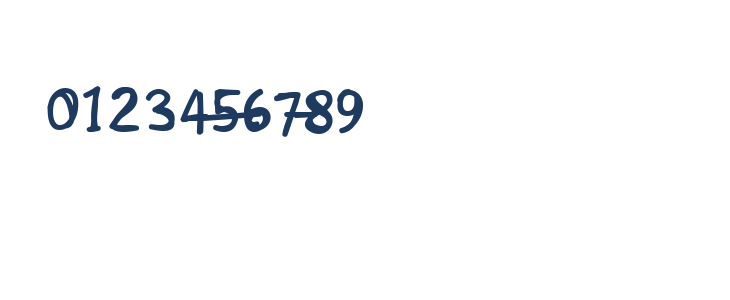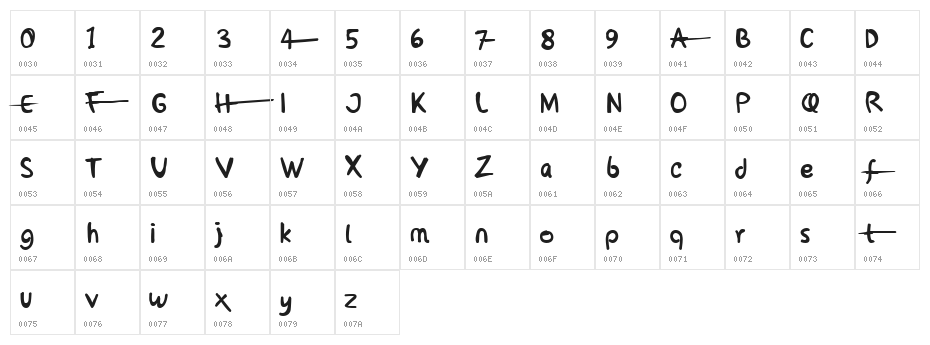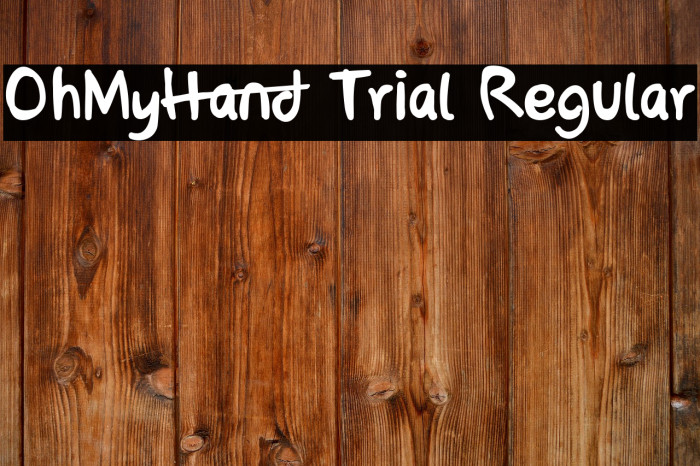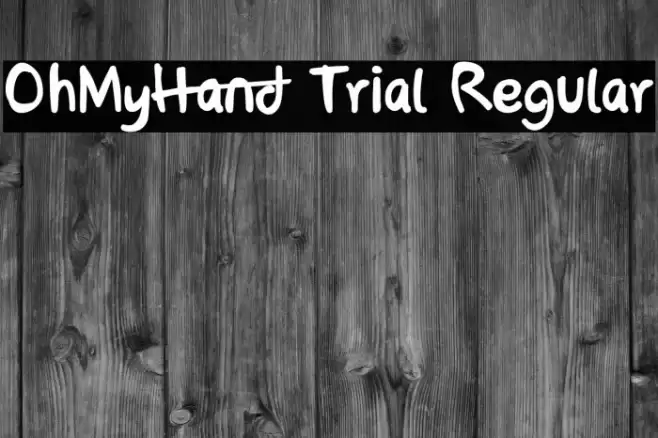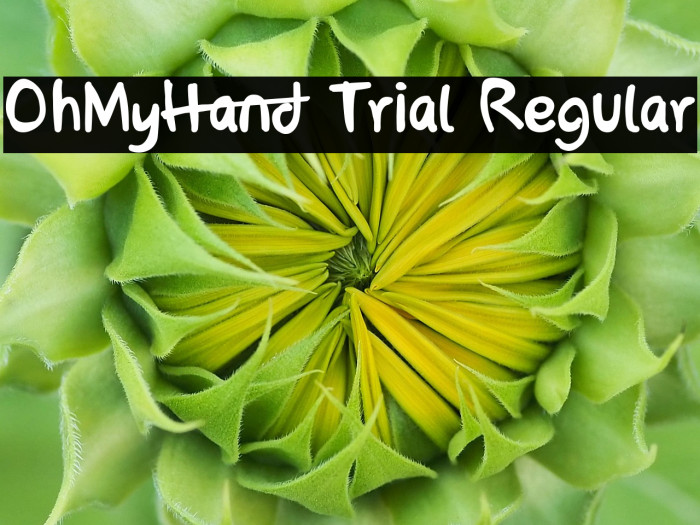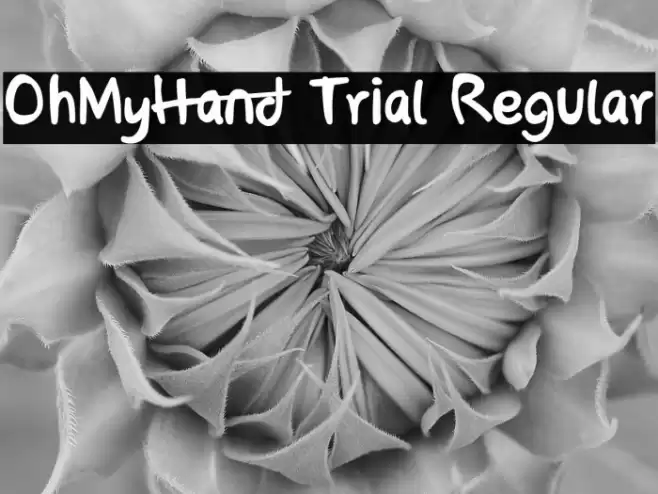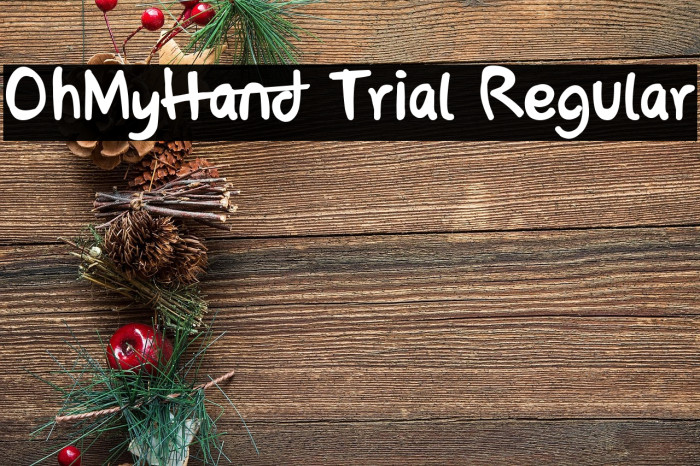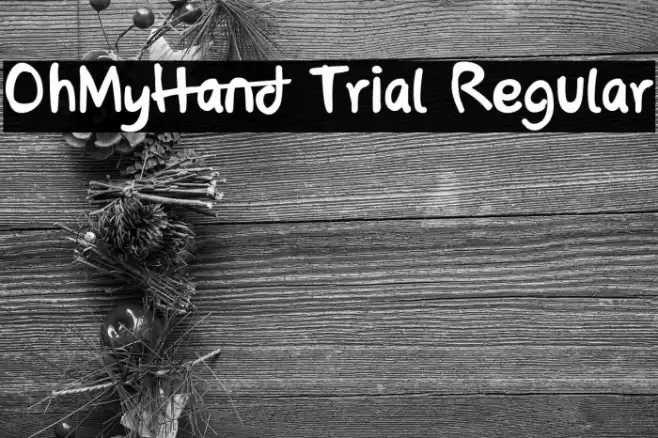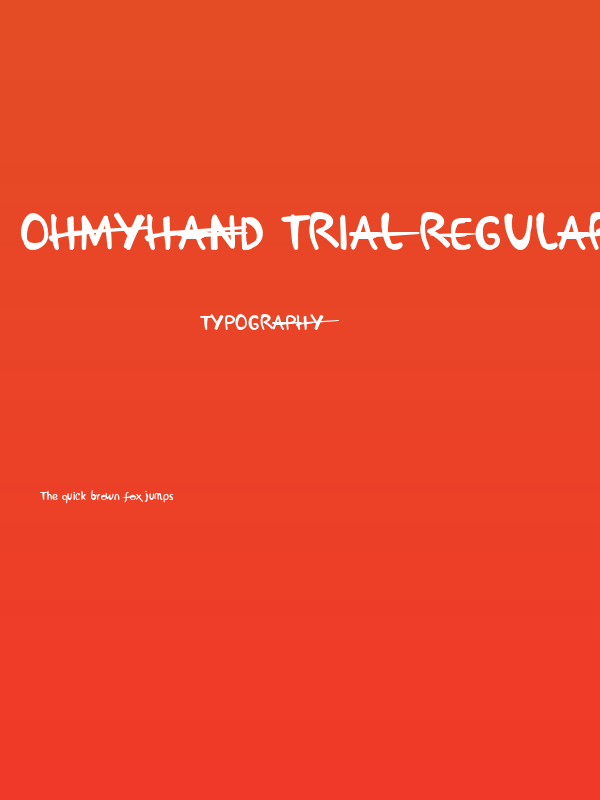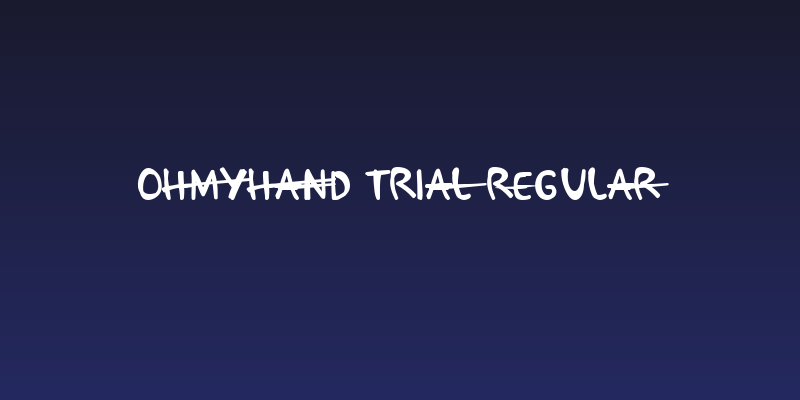
OhMyHand Trial Regular Font
OhMyHand Trial Regular Description
This font features a playful and informal handwritten style, characterized by its bold and slightly irregular strokes. The letters have a casual, friendly appearance, with rounded edges and a consistent flow that mimics natural handwriting. The uppercase and lowercase letters maintain a cohesive look, while the numerals and special characters blend seamlessly with the overall design. The font's organic feel makes it suitable for projects that require a personal touch or a relaxed vibe.
Overall StyleCasual
Use CaseHeadlines, Logos, Informal Text
Proposed ProjectsIdeal for greeting cards, children's books, casual branding, and social media graphics.